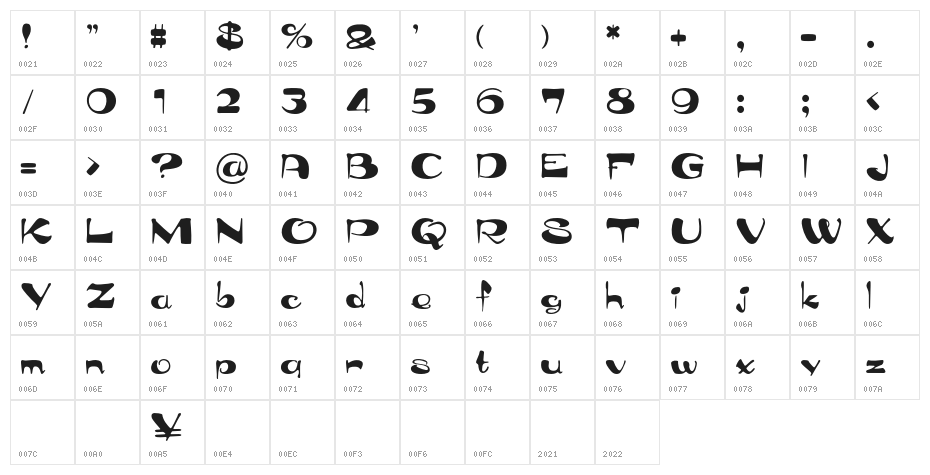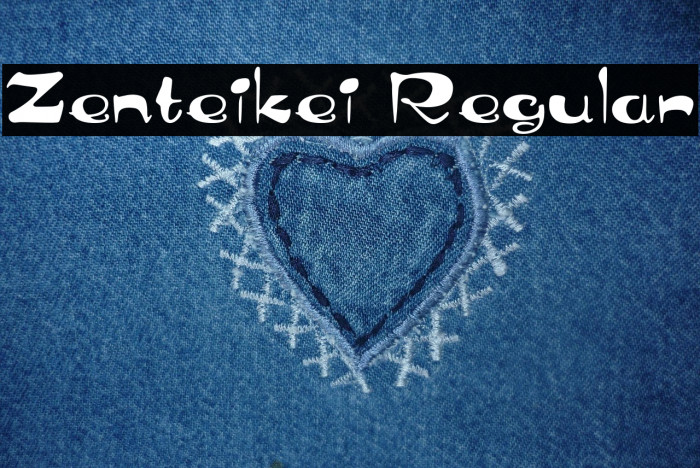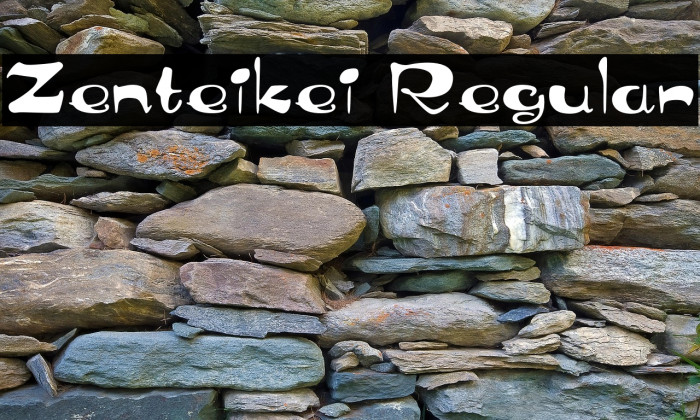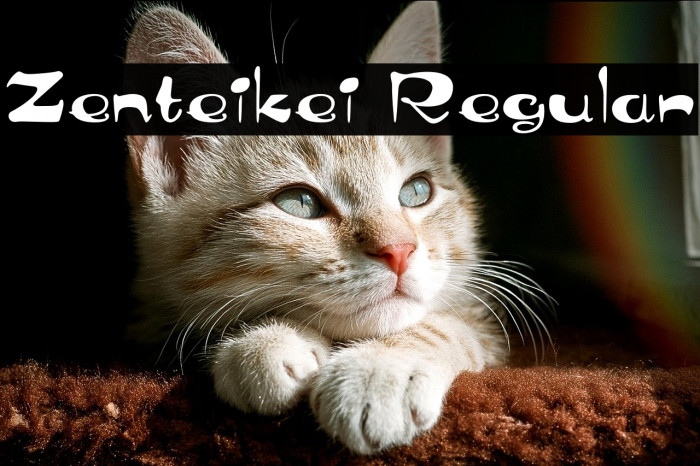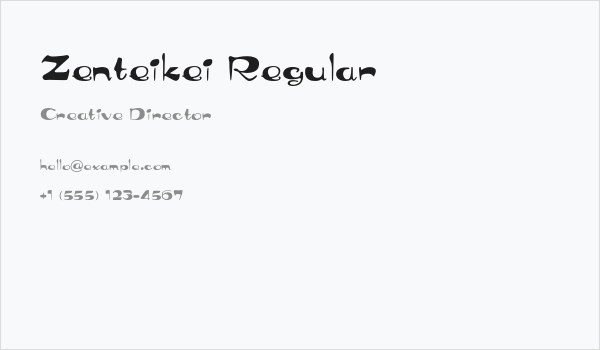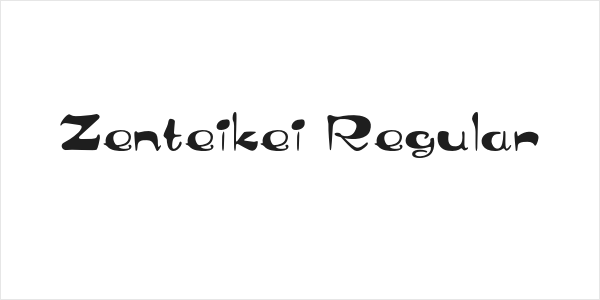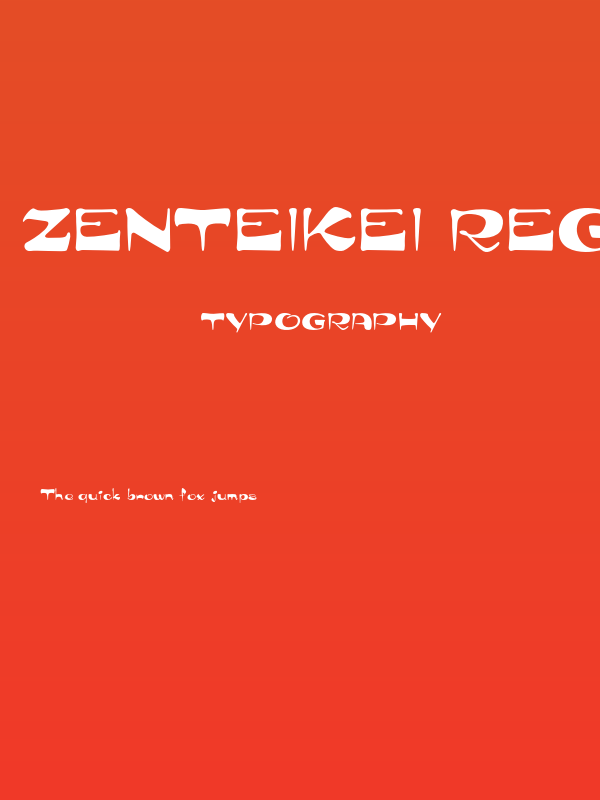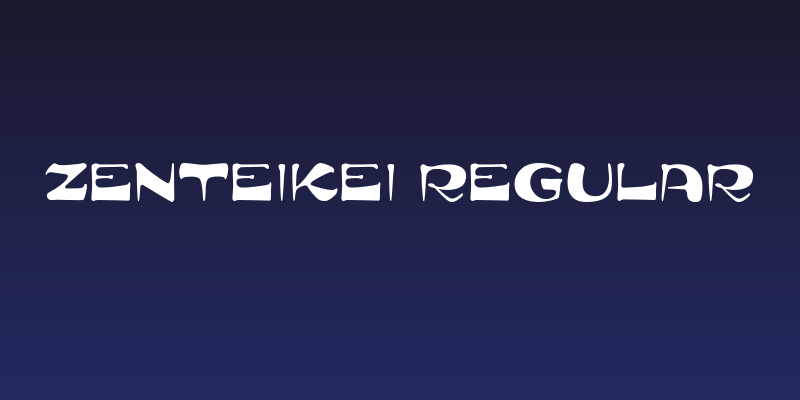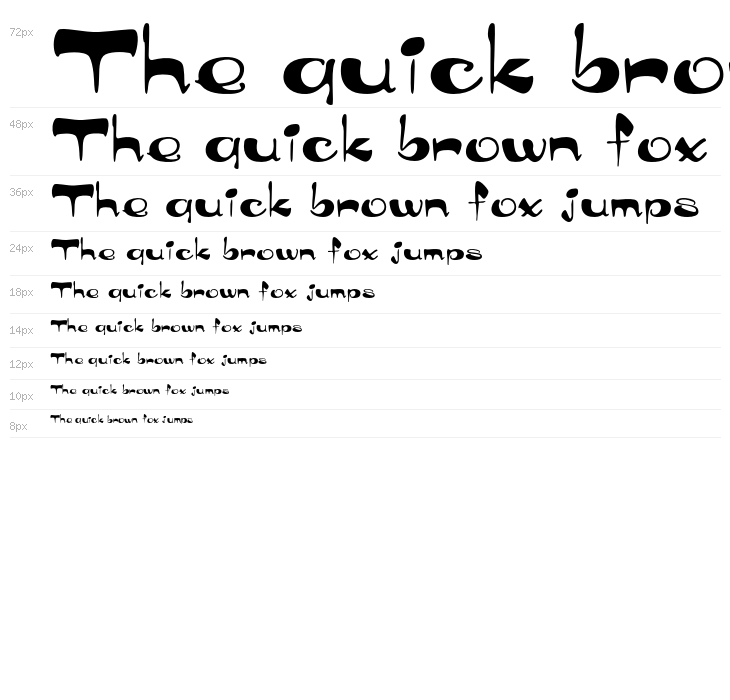
Zenteikei Regular Font
Zenteikei Regular Description
This font features a unique and artistic design with a playful and dynamic appearance. The characters exhibit a mix of thick and thin strokes, creating a high contrast that adds to its visual interest. The letters have a slightly irregular and organic form, giving them a hand-drawn feel. The uppercase characters are bold and striking, while the lowercase letters maintain a whimsical and fluid style. The numbers and special characters follow the same artistic theme, ensuring consistency throughout the font. This font is ideal for creative projects that require a distinctive and eye-catching typeface.
| Use Case | Headlines, Logos, Artistic projects |
| Proposed Projects | Ideal for posters, creative branding, artistic projects, and unique logo designs. |